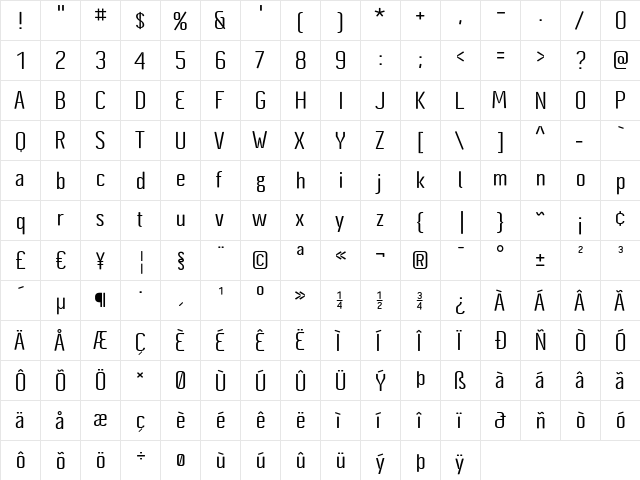
Cynapse Pro Bold
Design Context for Cynapse Pro Typeface
Cynapse Pro offers clean, dependable letterforms without strong stylistic allegiance, making it a practical choice for designers who need flexibility. The heavy weight commands attention and anchors typographic hierarchies.